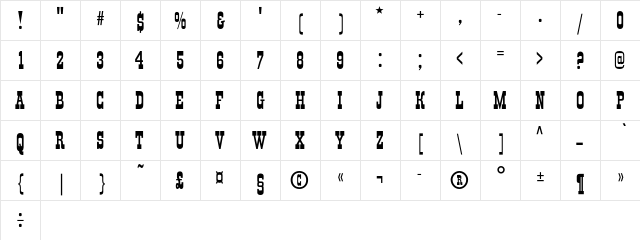
Italiansky D Regular
Design Context for Italiansky D Typeface
Italiansky D takes a measured approach to typography — its balanced proportions and neutral character make it a reliable workhorse for both digital and print work.